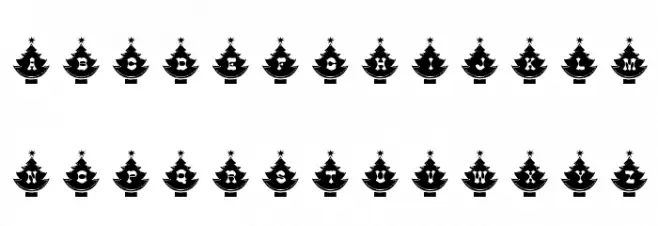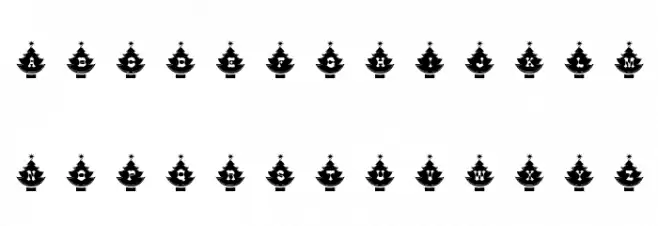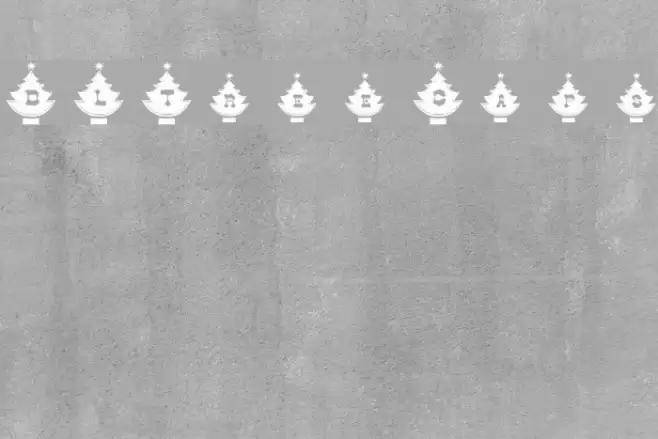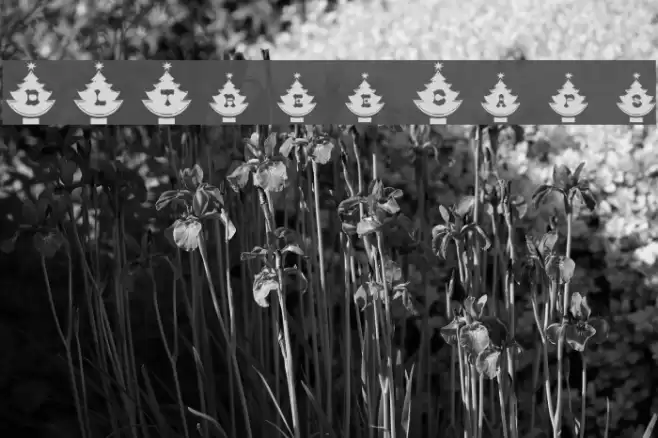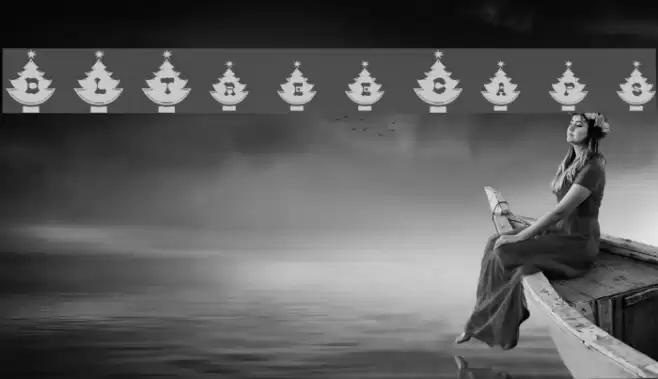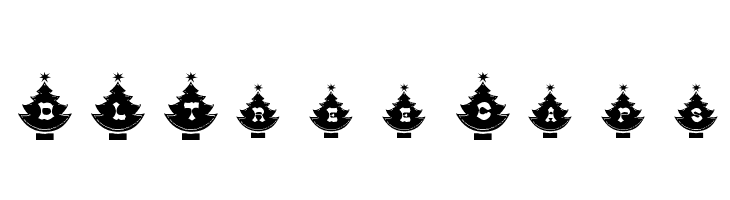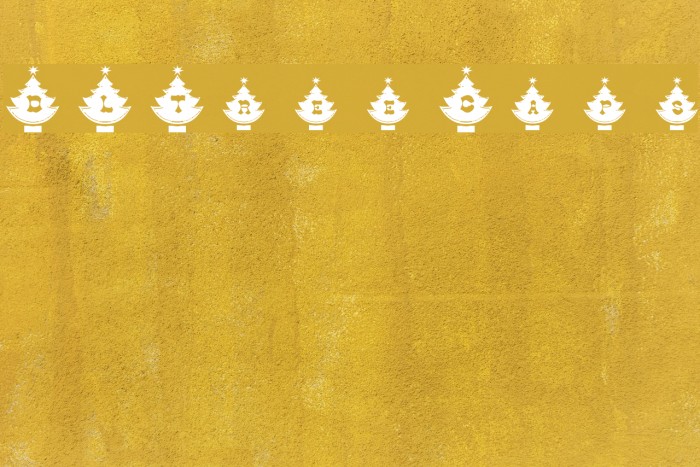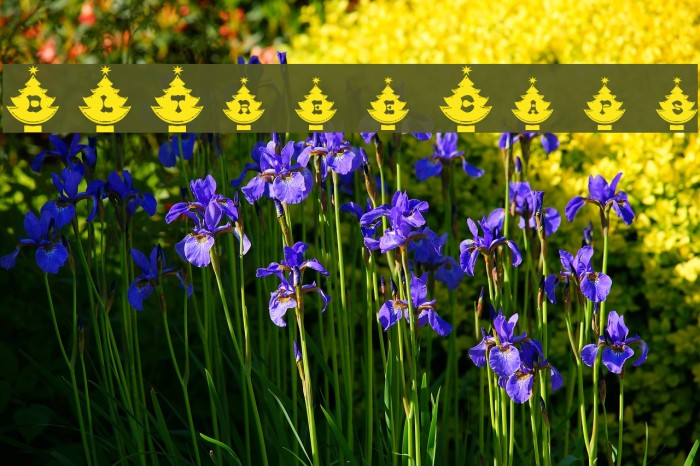
DLTreeCaps
This decorative font features letters embedded within stylized Christmas tree shapes, complete with a star on top. The design is playful and festive, making it ideal for holiday-themed projects. Each character is distinct, with the tree motif providing a unique silhouette. The font is primarily uppercase, with a consistent design across all letters. The absence of lowercase letters and numbers suggests a focus on decorative use rather than functional text. The overall appearance is whimsical and eye-catching, perfect for adding a touch of holiday spirit.
A festive font with letters inside Christmas tree shapes, ideal for holiday designs.
- Proposed Projects: Holiday cards, festive banners, Christmas-themed posters, seasonal event invitations.
- Overall Style: Decorative